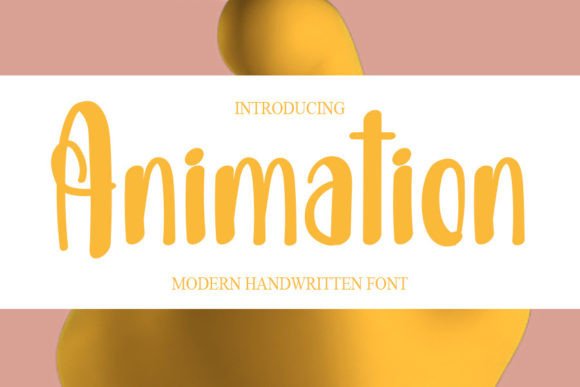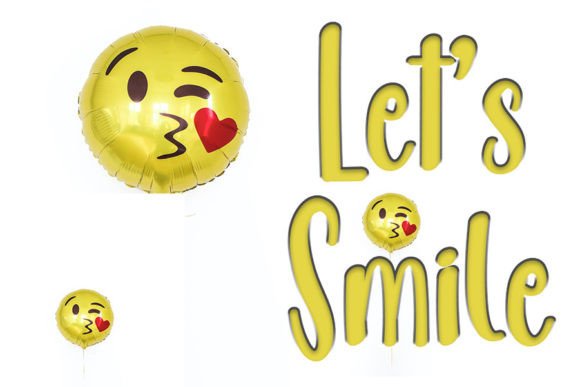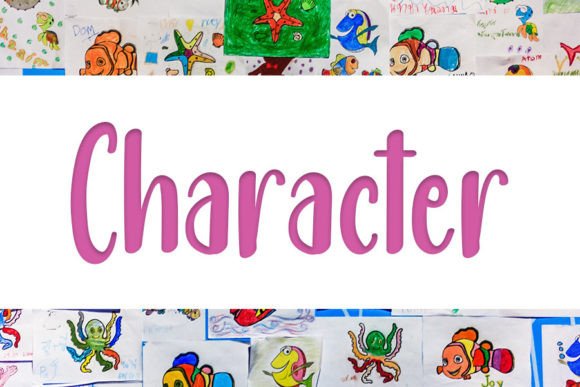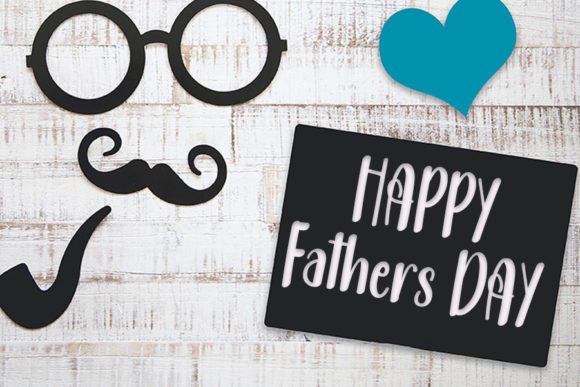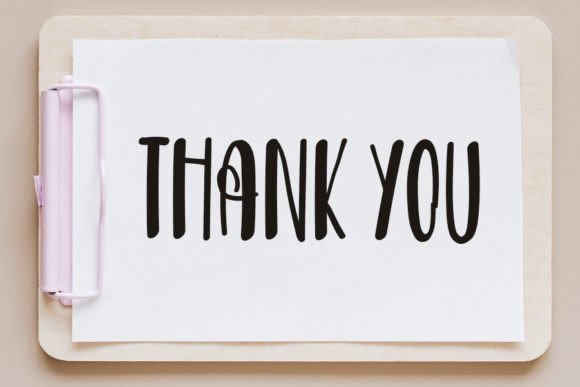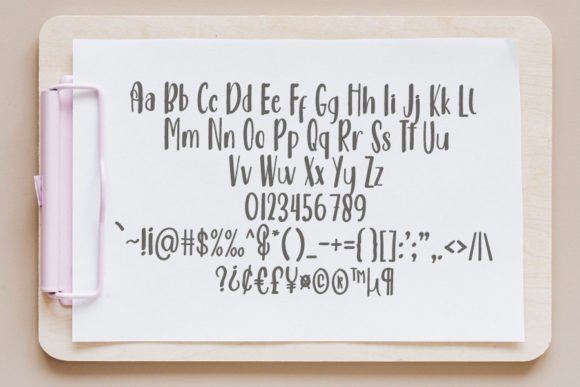
Animation Font
About Animation Font
“Animation” is a cool handwritten font that exudes a modern vibe while maintaining a clean and flawless form. It takes inspiration from classic calligraphy and achieves a harmonious balance, avoiding extremes of being too thin or too thick. This font is thoughtfully crafted to elevate the beauty of your projects and can be effectively applied in a wide range of design contexts.
One of the distinctive features of “Animation” is its ability to seamlessly blend classic calligraphic elegance with contemporary aesthetics. The font’s design captures the essence of calligraphy and infuses it with a fresh and modern style. This versatility makes it a suitable choice for numerous creative applications.
Imagine using “Animation” for branding and logo design, where it can convey both timeless elegance and modern sophistication. Envision incorporating this font into your digital and print materials, adding a touch of refined beauty to your projects. “Animation” can also be a valuable asset for creating stylish typographic artwork, quotes, and more.
In conclusion, “Animation” is more than just a font; it’s a design resource that skillfully combines the best of classic calligraphy and modern aesthetics. Its balanced and varied form makes it a versatile choice for a variety of design projects where beauty and sophistication are desired. Embrace “Animation” as a font that elevates your creative work, allowing you to achieve a harmonious blend of classic and contemporary design elements.